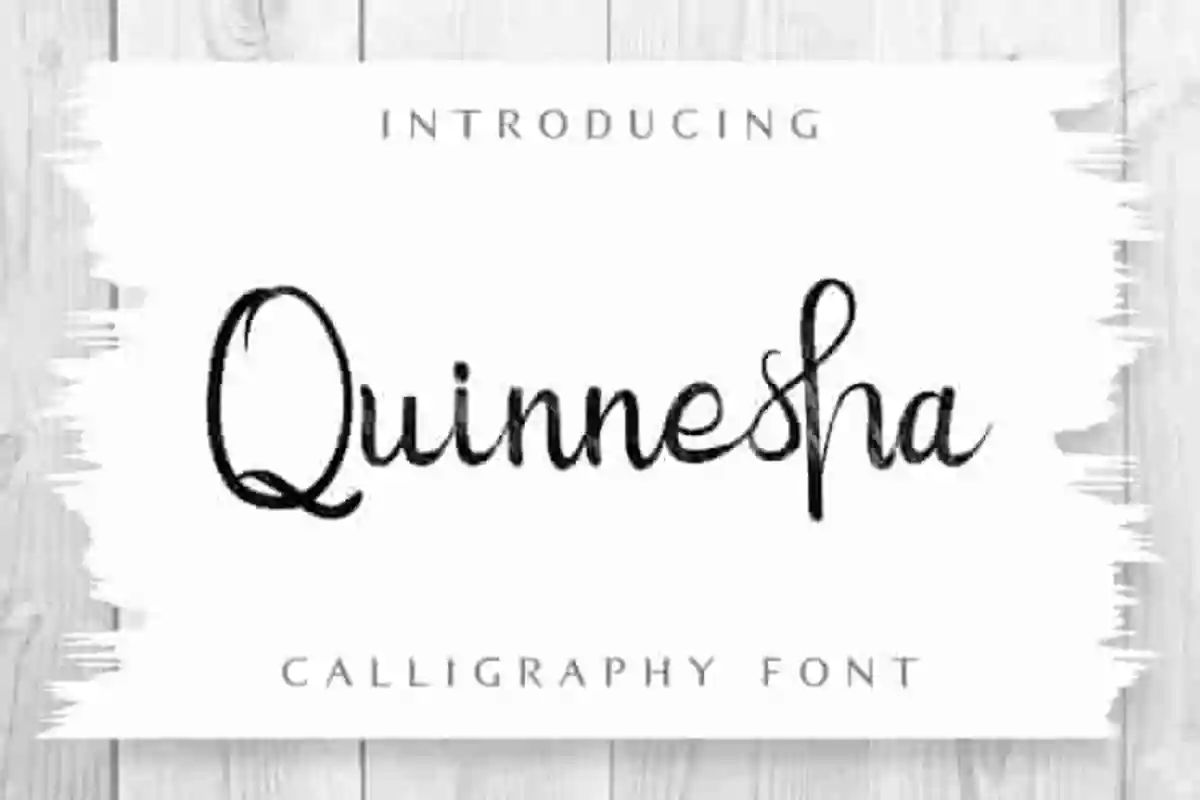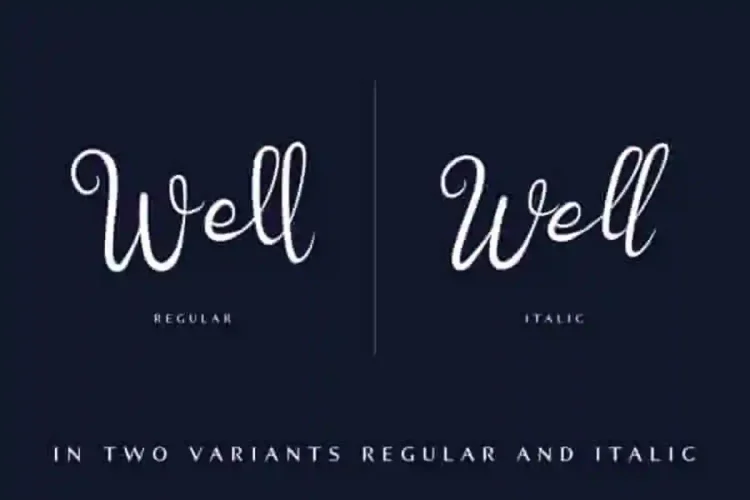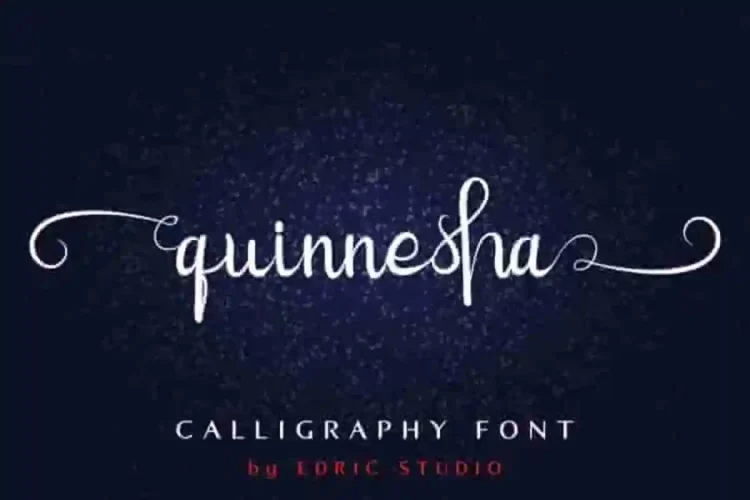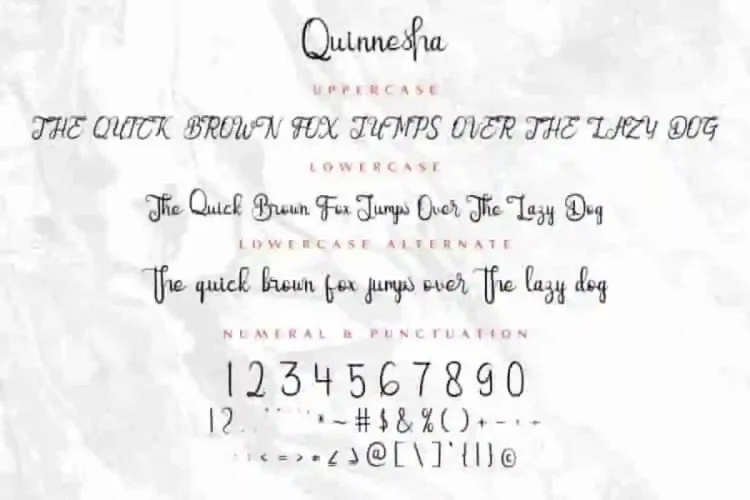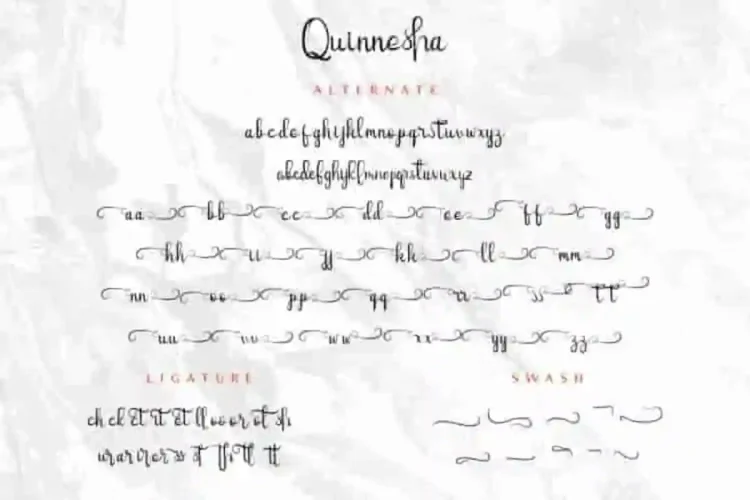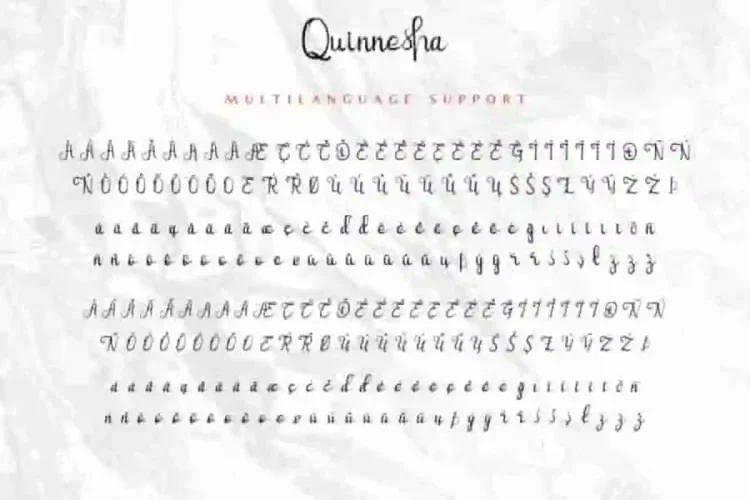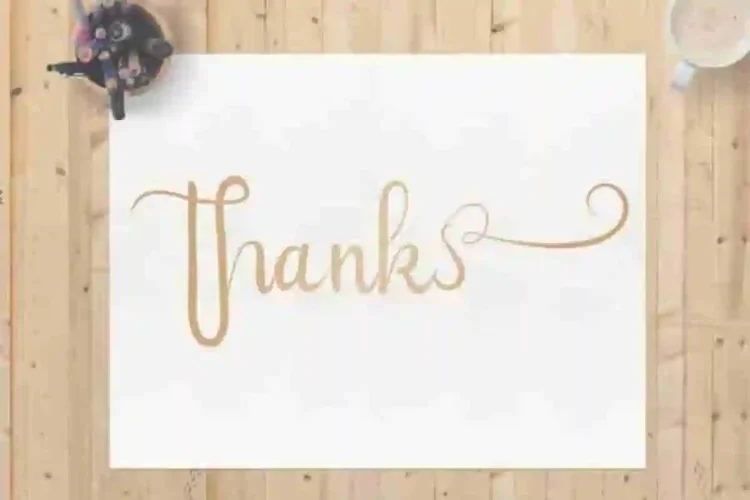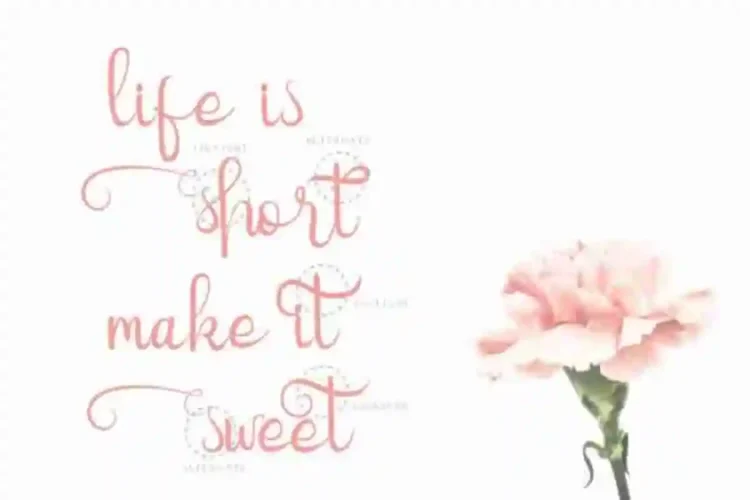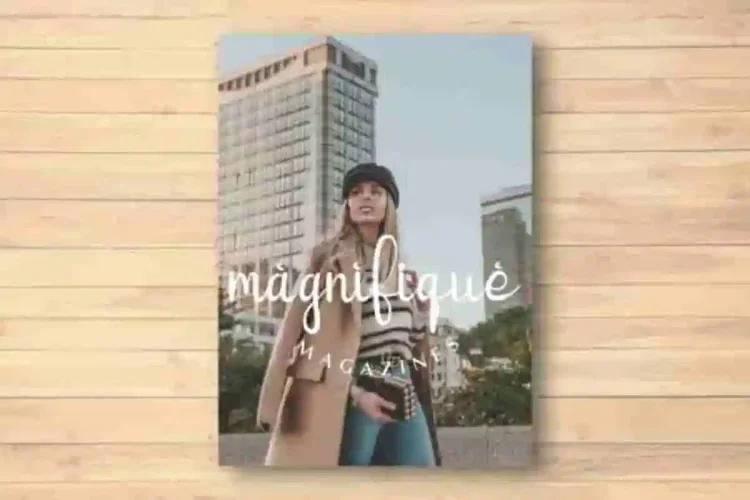
Quinnesha Signature Script Font
Edric Studio in 2019 Present to you :  Quinnesha Script Font
It has two styles : The Script Reguler and Italic.you will get full access and the zip package will contain:
Quinnesha Script Font this font will signature suits many projects categories : Logo type, flyer, stationery, business card, signage, flyer, brochure etc.  With your creativity, there’s no limit using with this font.